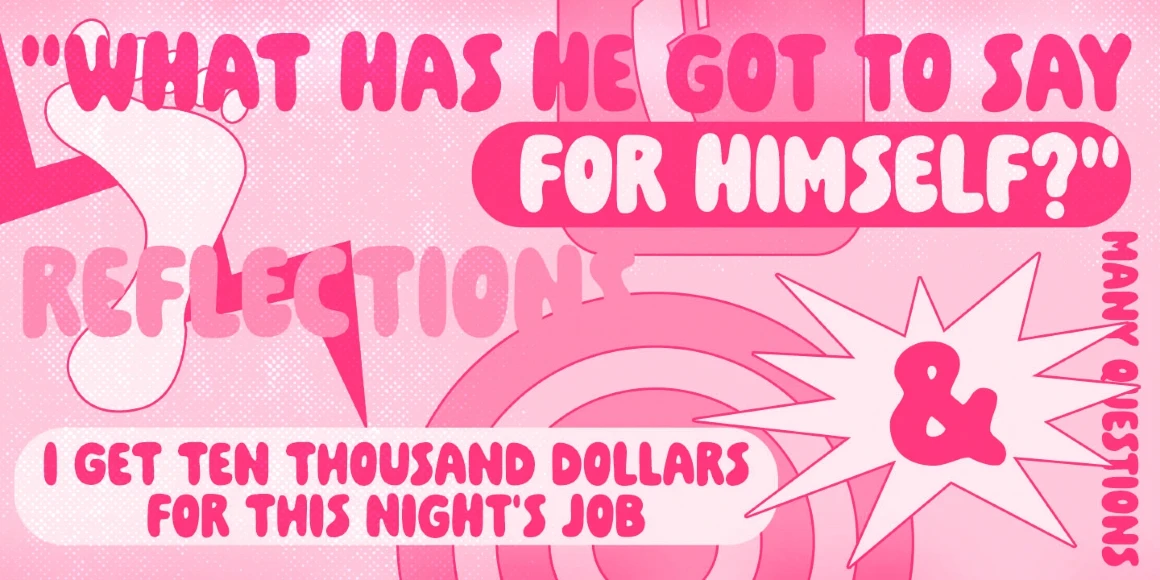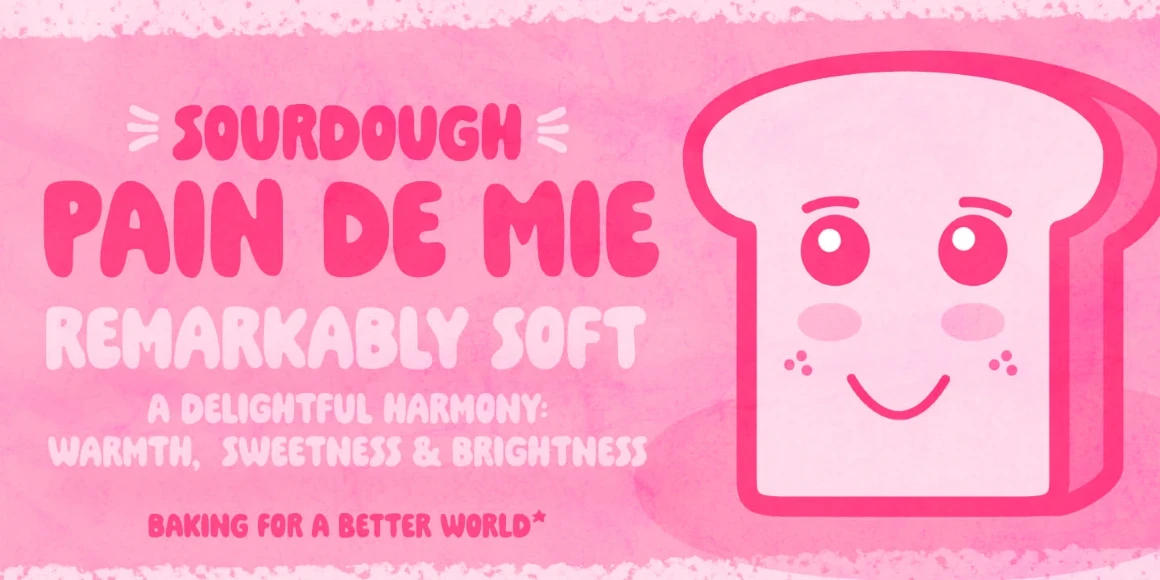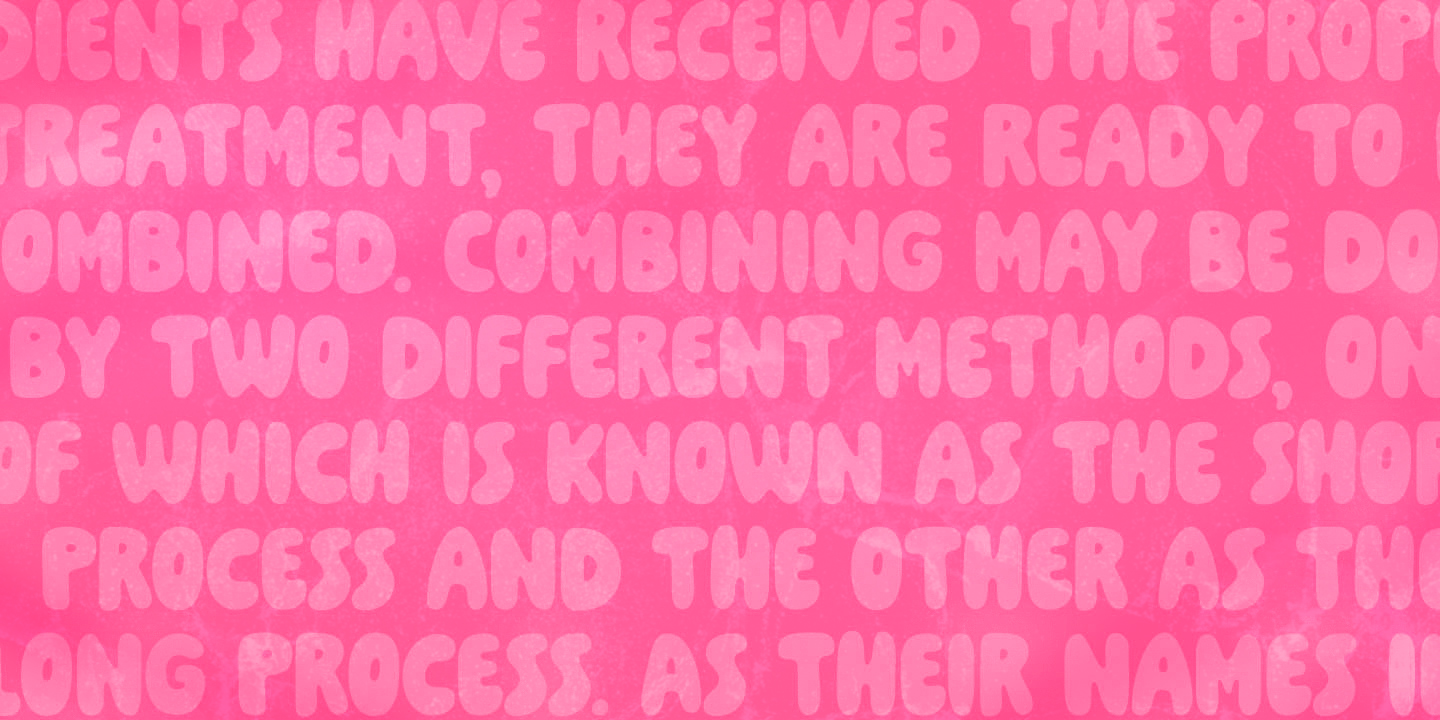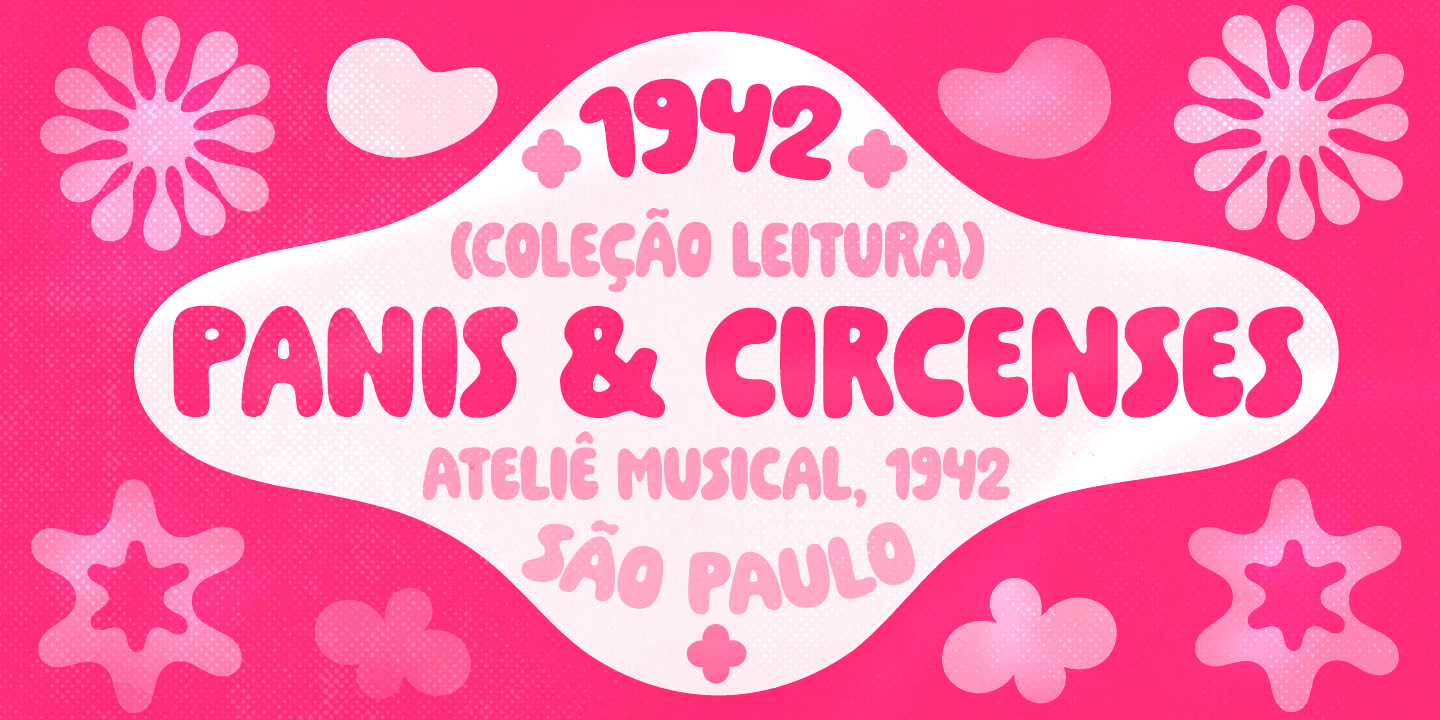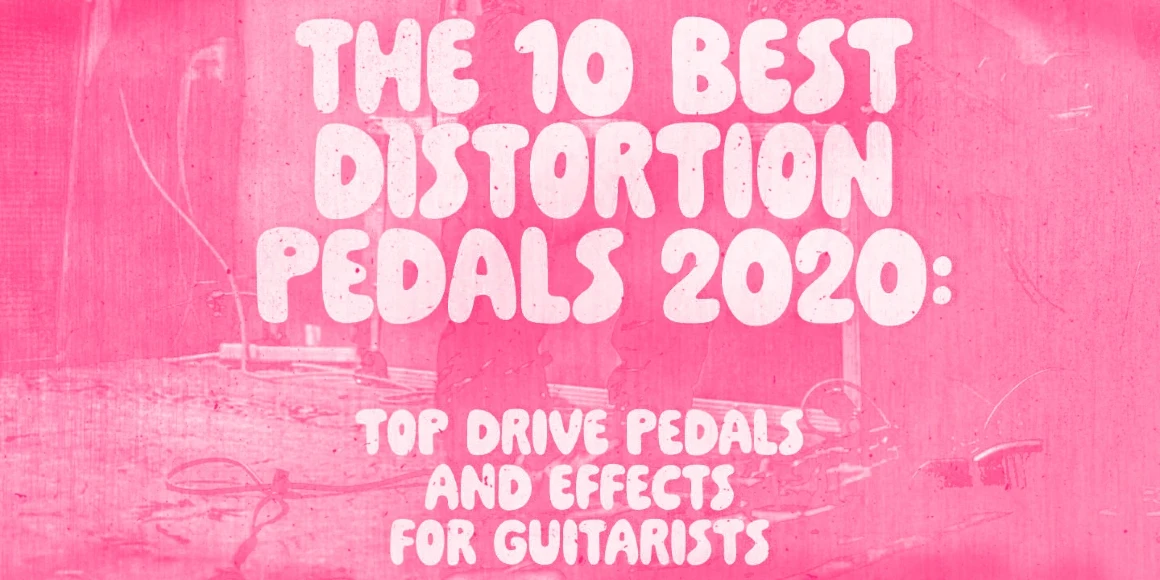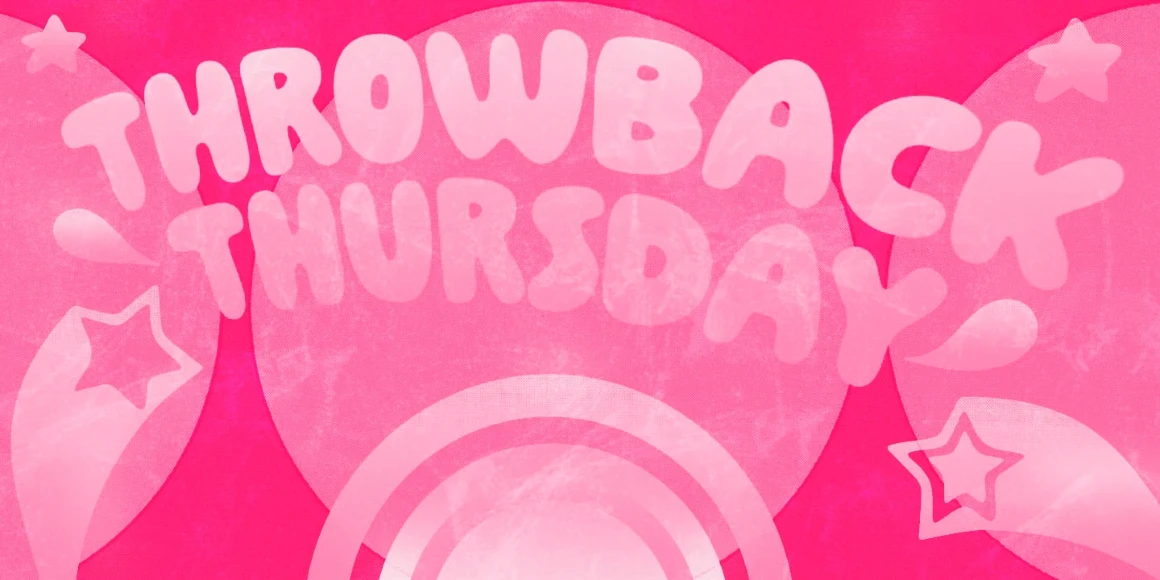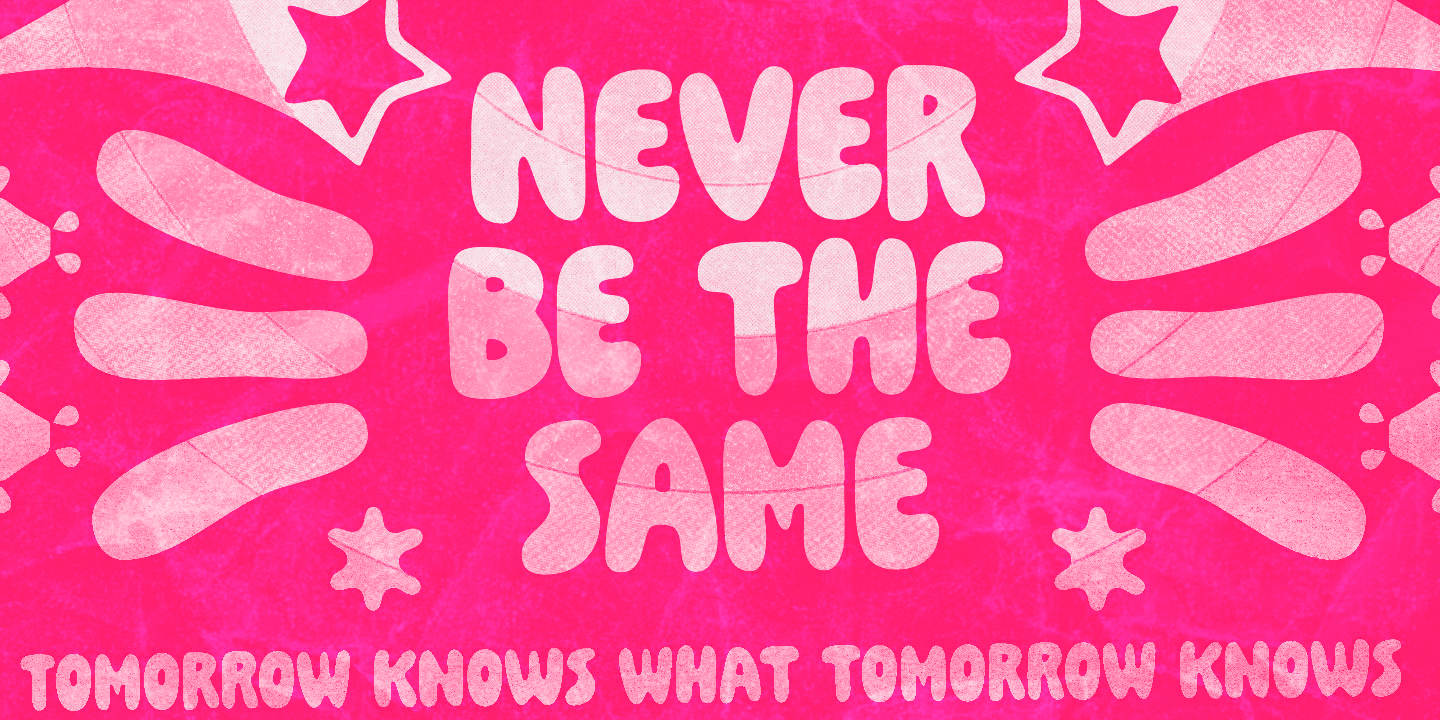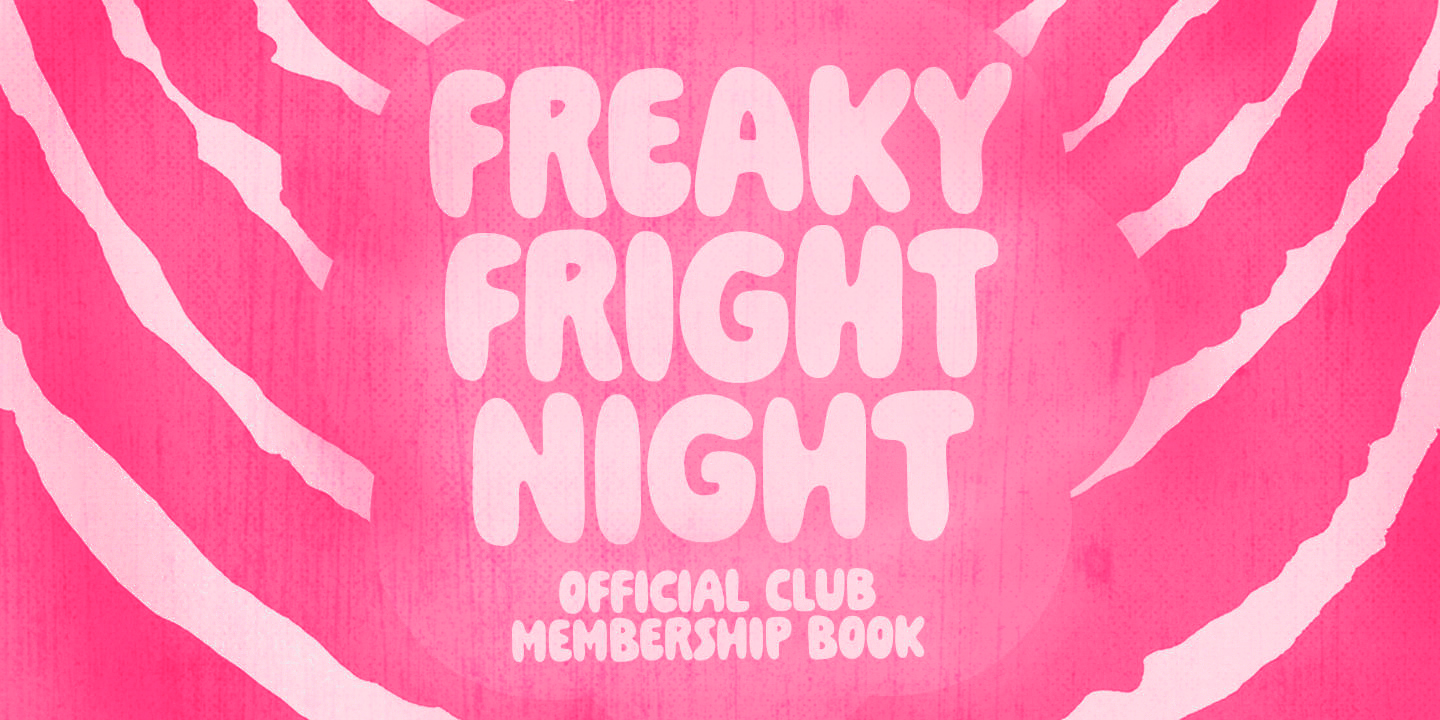
Pain de Mie
Pain de Mie Regular
Pain de Mie is a pillowy soft and sweetly social display typeface. An all-caps font with alternates for adding bounce and variety. The consistent rhythm and gentle curves give it a casual charm that’s easy to read but packed with personality. It’s also kinda creamy and bubbly too. And there’s a handful of drawings to add extra charm here and there! It’s great for branding, food packaging, school flyers, or any other application that benefits from a warm, informal tone with high visual impact.